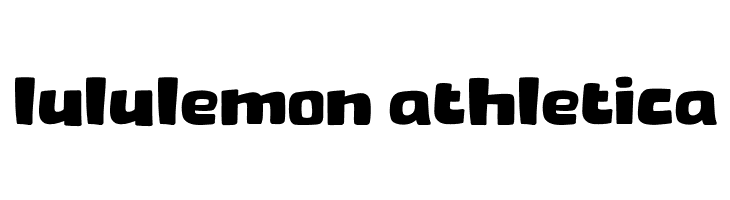
من المفضلات مؤخرًا Zardoloni, Infernalda, Jorolks, Astalemtim and Vastantonius. توازن هذه الخطوط بين الوضوح والشخصية وتناسب العلامات التقنية، وتصاميم التحرير، ومرئيات الشبكات الاجتماعية.